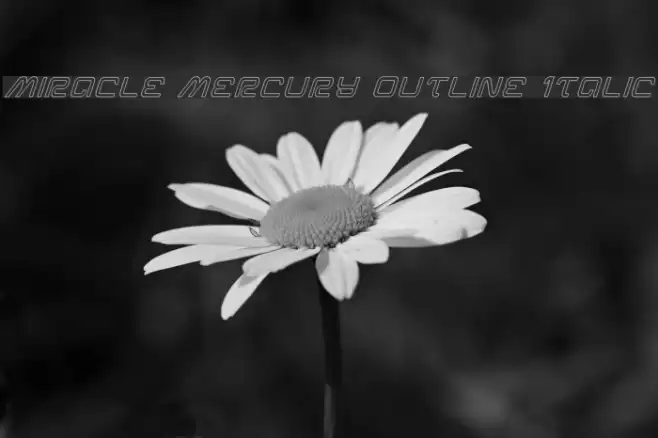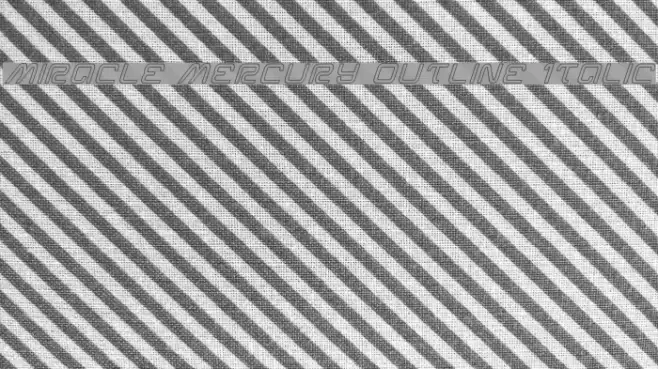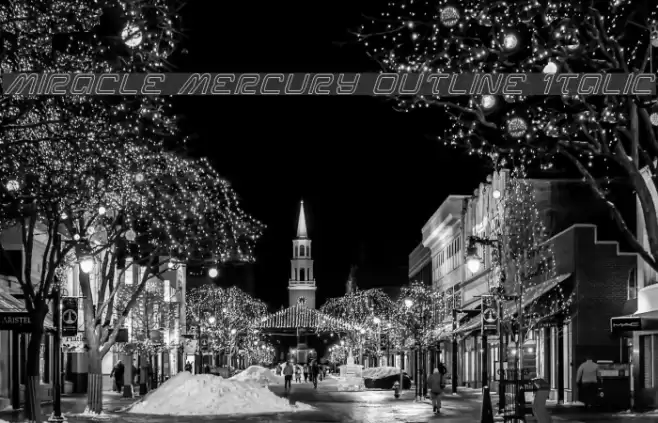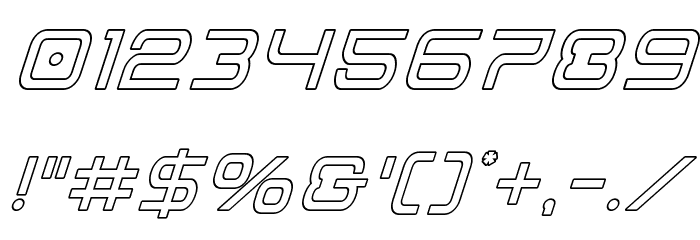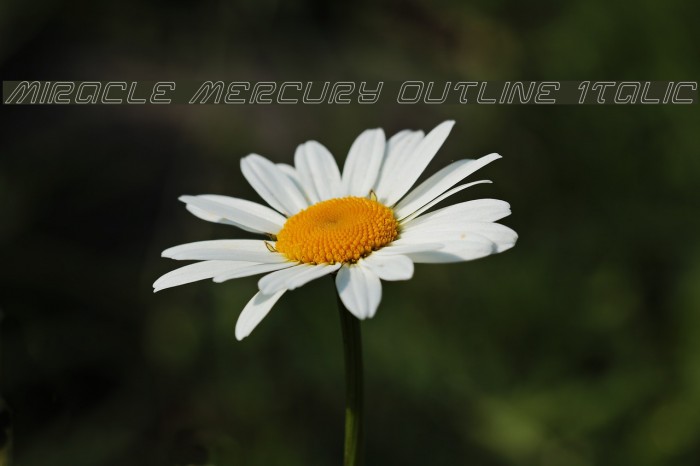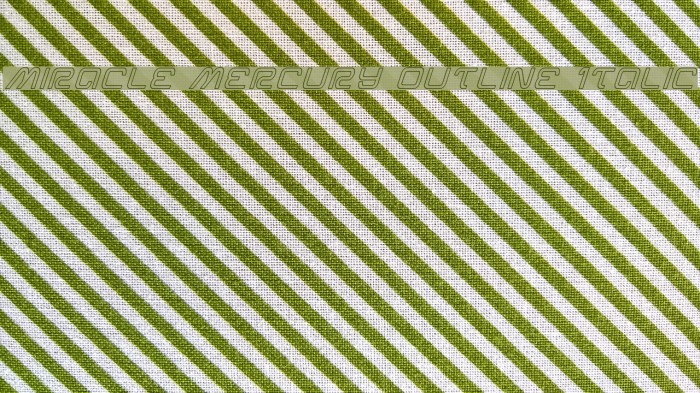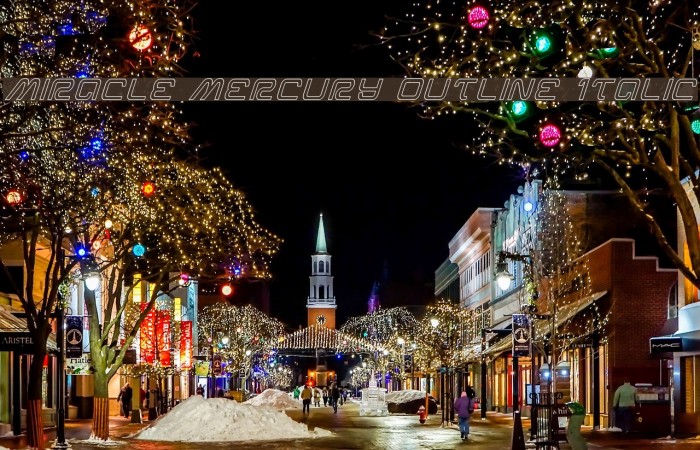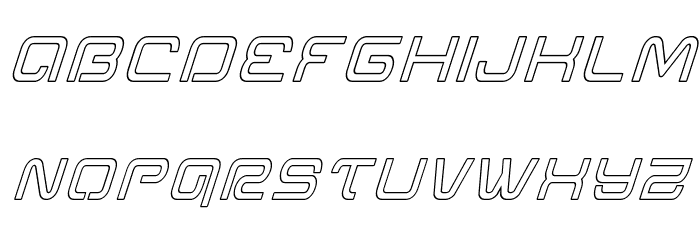
Miracle Mercury Outline Italic Font
Miracle Mercury Outline Italic Description
This font features a modern, geometric outline style with a distinct italic slant, giving it a dynamic and futuristic appearance. The characters are constructed with clean, sharp lines and consistent stroke widths, creating a uniform and cohesive look. The uppercase and lowercase letters maintain a similar structure, enhancing readability while preserving the unique aesthetic. The numerals and special characters are designed to match the overall style, making this font versatile for various applications. Its outline nature adds a layer of sophistication, making it suitable for projects that require a contemporary and stylish touch.
A modern, geometric outline font with an italic slant and consistent stroke widths from Uncategorized fonts.
- Proposed Projects: Ideal for branding, logos, posters, and digital media where a modern and stylish look is desired.